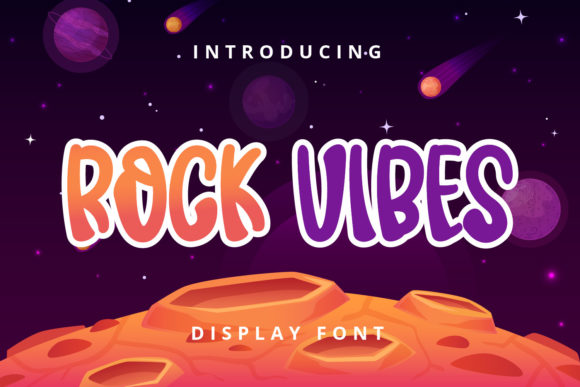
Journey into the world of Rock Vibes Font, where creativity dances with sophistication. This display font, crafted by the skilled hands of nicetrip7, is a testament to boundless imagination and timeless style.
Rock Vibes Font is not just a collection of letters; it's an expression of individuality, a reflection of your unique personality. With its fresh, clean, and elegant strokes, this font adds a touch of joy and vibrancy to any project, whether it's a whimsical invitation, a playful poster, or a captivating social media post.
Unleash your creativity and let your words come alive with Rock Vibes Font. Its versatility knows no bounds, allowing you to effortlessly elevate your designs and leave a lasting impression on your audience. Whether you're crafting a formal invitation or adding a touch of playfulness to your personal projects, this font delivers the perfect balance of professionalism and charm.
Immerse yourself in the enchanting world of Rock Vibes Font and discover a world of possibilities. Its effortless elegance adds a touch of sophistication to your designs, while its playful nature ensures that your message resonates with your audience.
Don't settle for ordinary fonts that blend into the background. Embrace the power of Rock Vibes Font and let your designs shine with originality and flair. Whether you're a seasoned designer or just starting out, this font is your key to unlocking a world of limitless creativity.